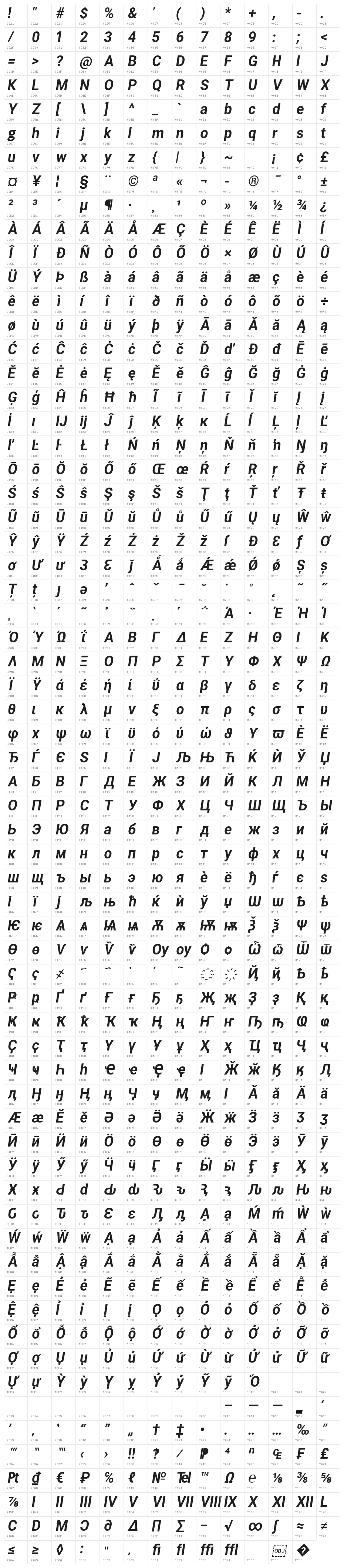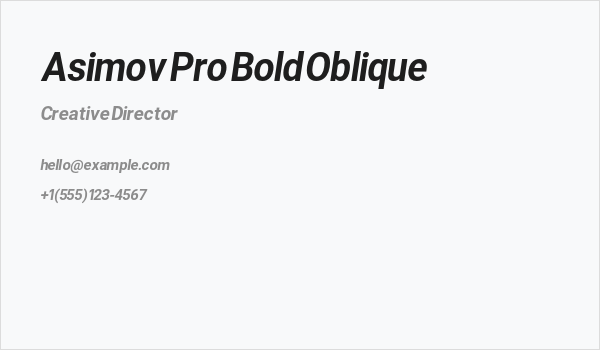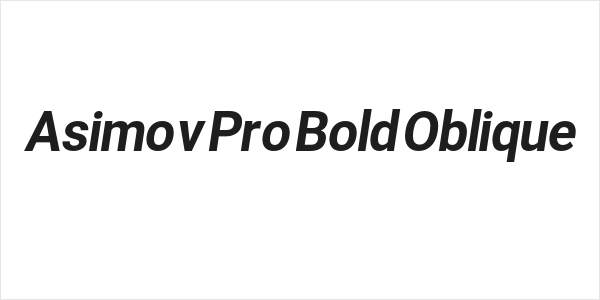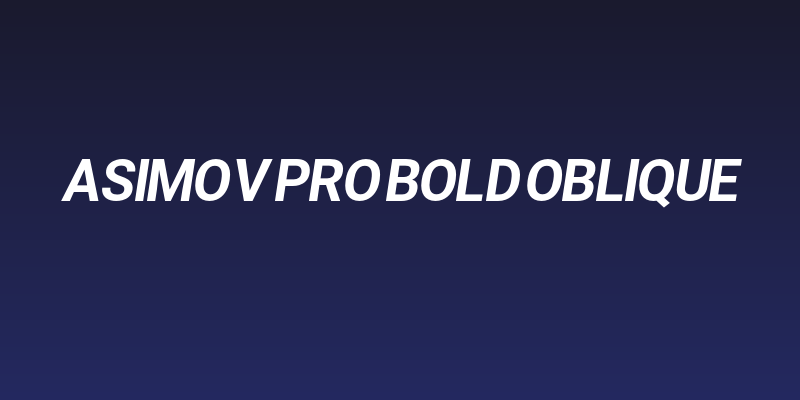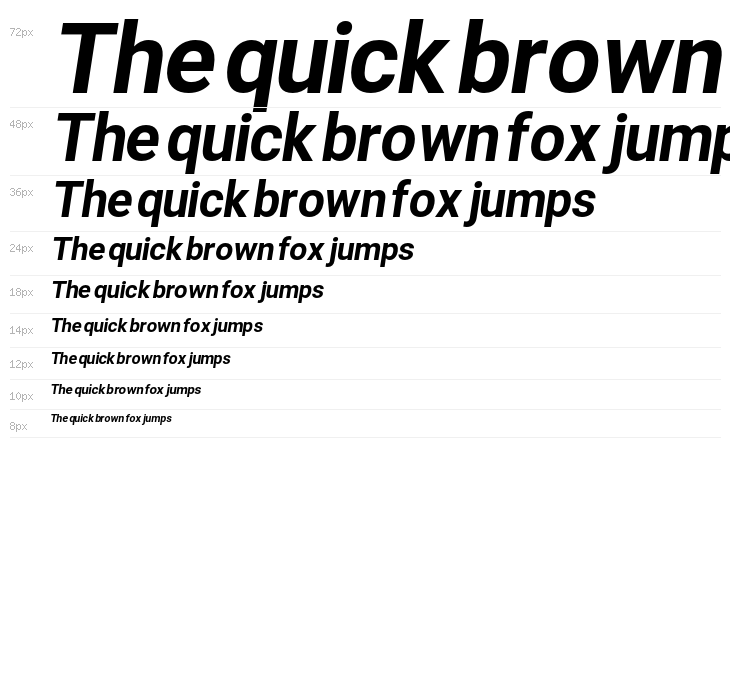
Asimov Pro Bold Oblique Font
Asimov Pro Bold Oblique Description
This font exhibits a bold and dynamic style with a distinct oblique slant, giving it a sense of motion and modernity. The characters are well-defined with a consistent stroke weight, providing a strong visual impact. The uppercase and lowercase letters maintain a uniform appearance, while the numerals and special characters complement the overall design. Its clean lines and contemporary feel make it suitable for a variety of design applications.
| Use Case | Headlines, Logos, Advertising |
| Proposed Projects | Ideal for branding, advertising, headlines, and digital media projects that require a strong and modern typeface. |